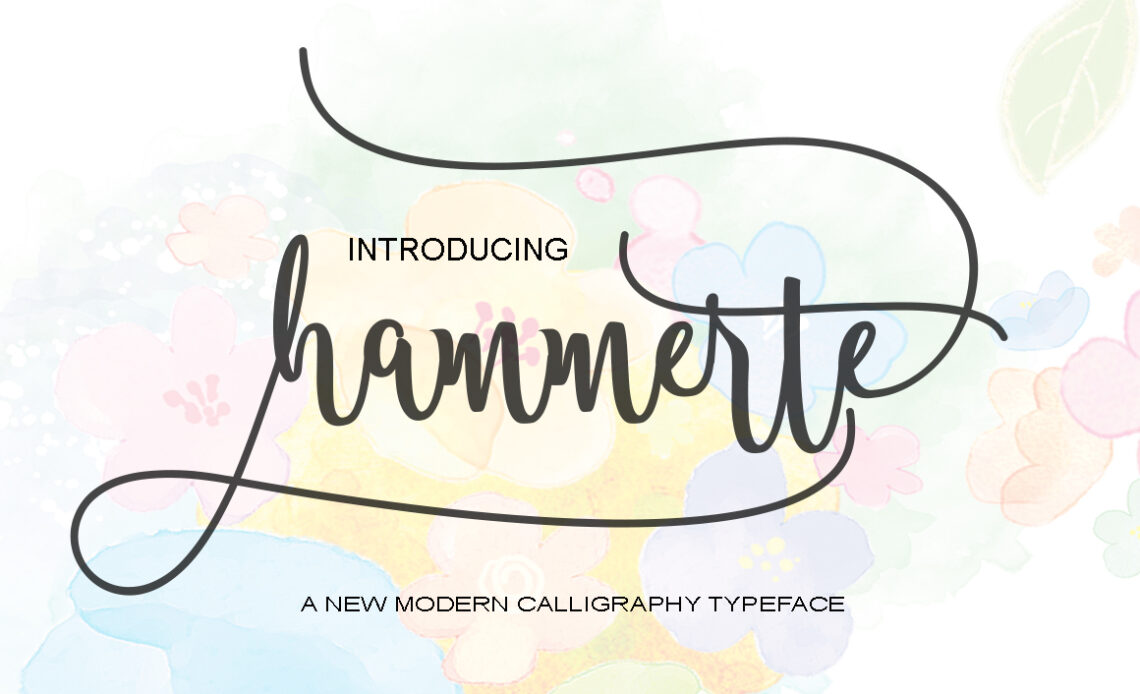
Get ready to captivate your audience with the mesmerizing Hammerte Script Font!
Embark on a typographic adventure where every letter dances across the screen, leaving behind a trail of elegance and sophistication. With over 419 meticulously crafted glyphs and 205 tantalizing alternate characters, Hammerte grants you unparalleled freedom to express your creativity.
Unleash your imagination and craft designs that whisper a thousand words. Whether you're creating logos that demand attention, elegant invitations that evoke a sense of occasion, or social media posts that captivate your followers, Hammerte has the power to transform your words into breathtaking works of art.
Immerse yourself in the world of Hammerte and experience the thrill of calligraphy at your fingertips. Its graceful strokes flow effortlessly, inviting you to pen enchanting messages, captivating stories, and unforgettable headlines.
Elevate your brand's identity with a typeface that exudes professionalism and sophistication. Whether you seek to create packaging designs that entice customers or craft website designs that leave a lasting impression, Hammerte empowers you to make a statement that lingers in the minds of your audience.
Discover the allure of Hammerte Script Font today and embark on a journey of typographic excellence. Let the magic of its flowing lines and captivating characters enchant your designs and leave an unforgettable imprint on the world!